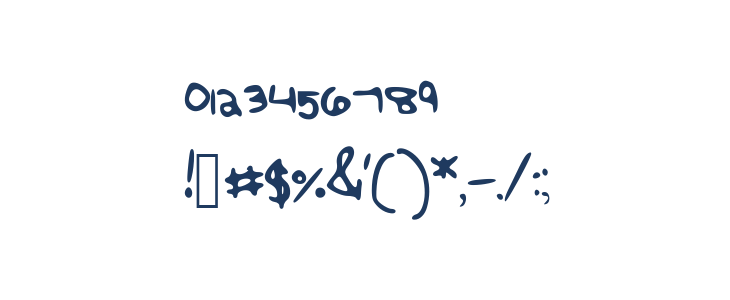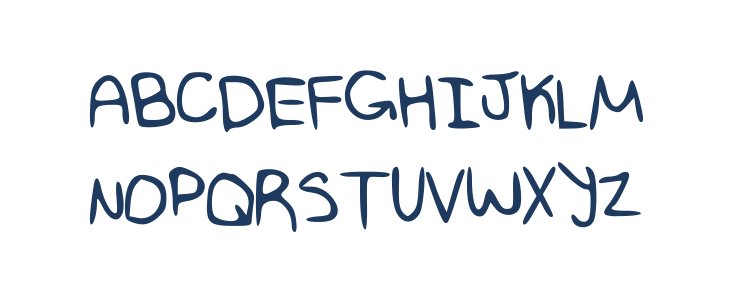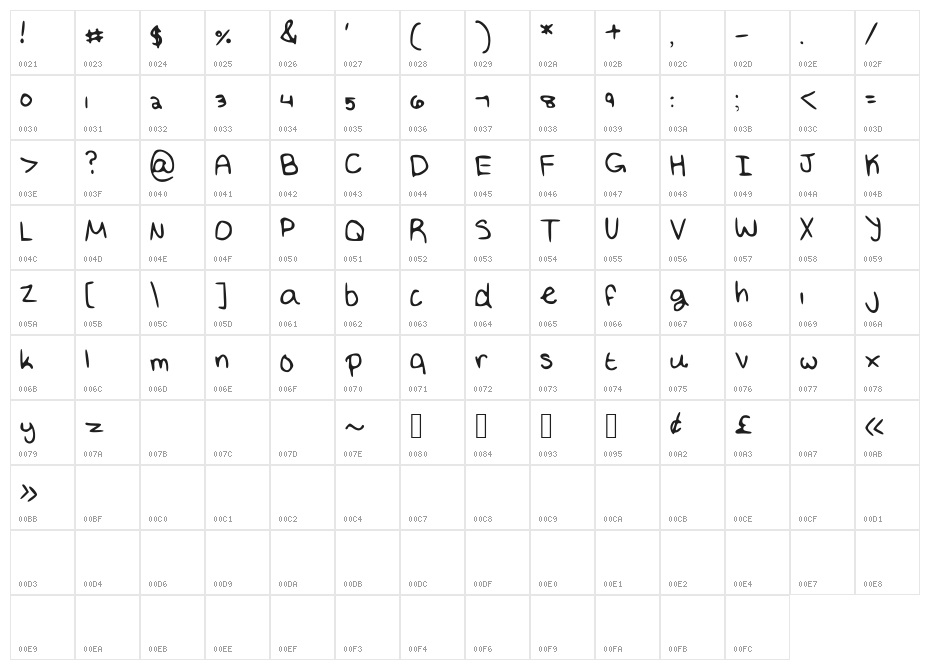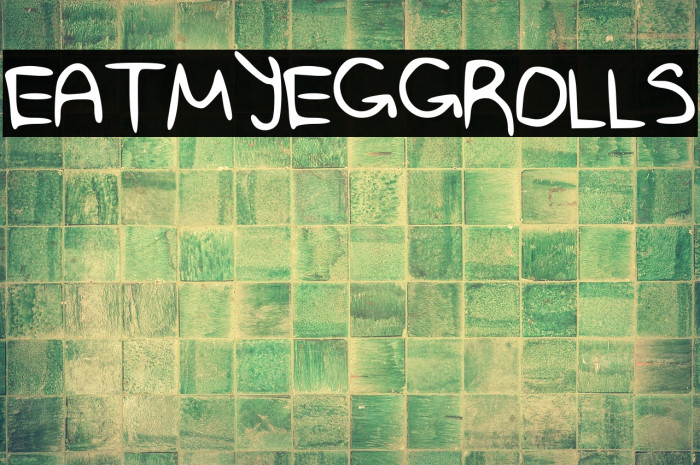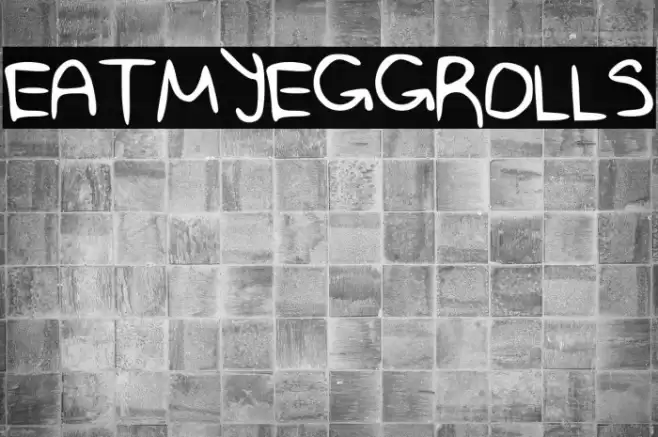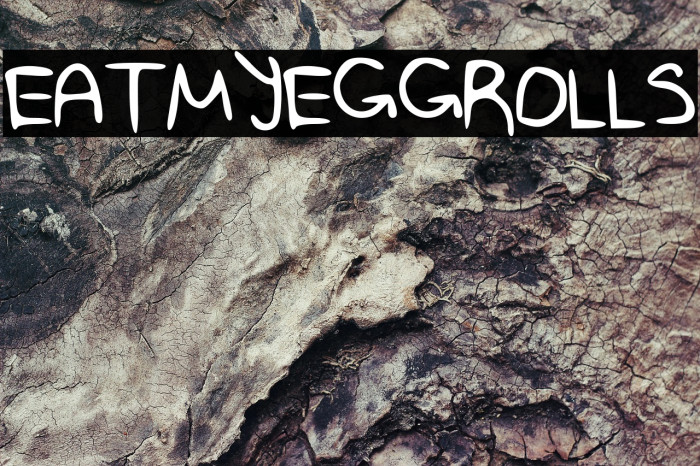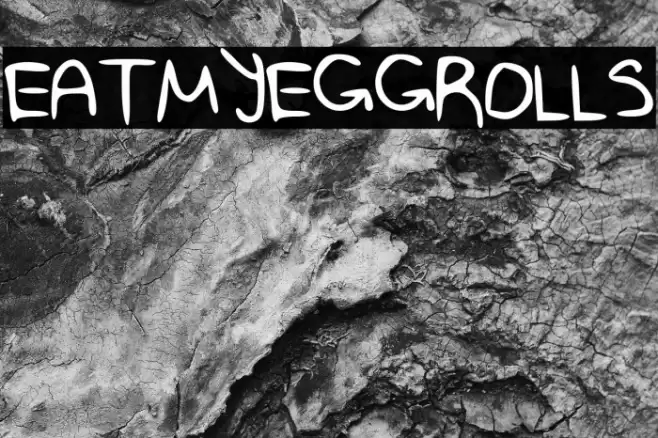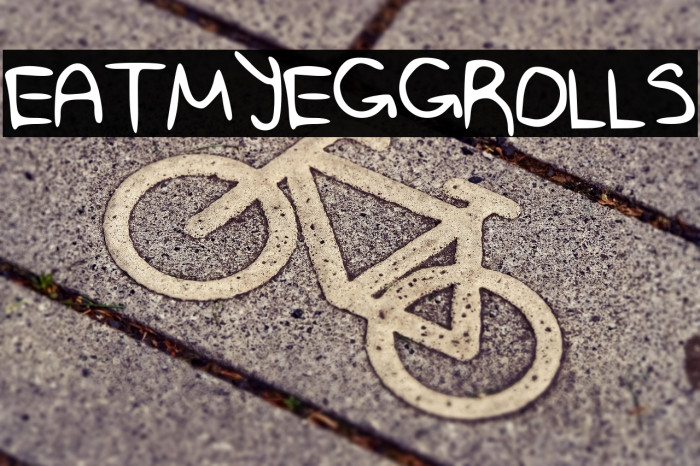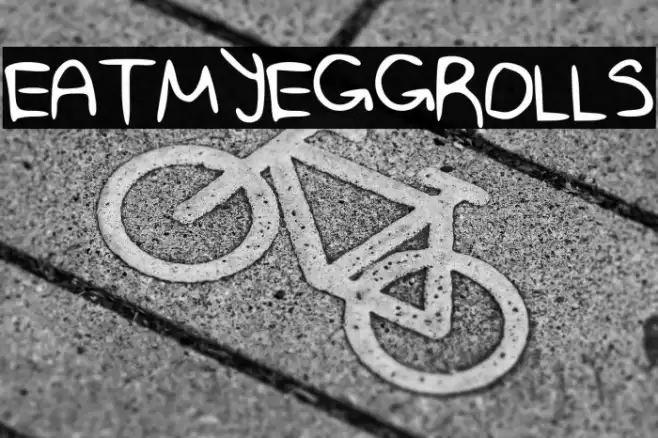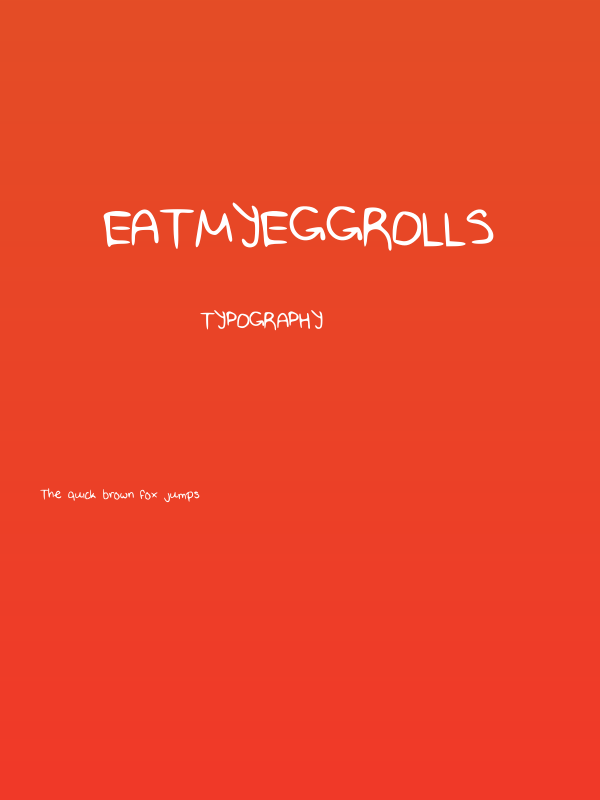
EATMYEGGROLLS Font
EATMYEGGROLLS Description
Playful, handwritten style font with irregular, casual strokes.
| Overall Style | Casual, Playful, Informal |
| Use Case | Headlines, Body text, Logos, Invitations |